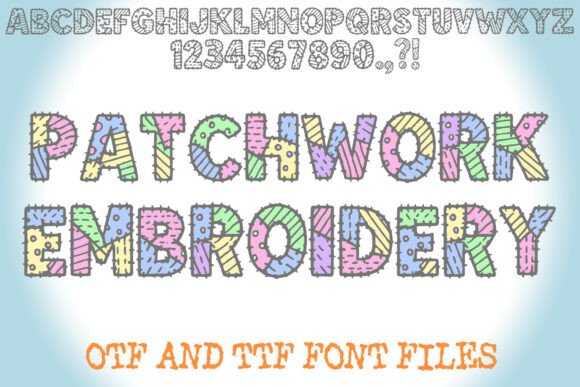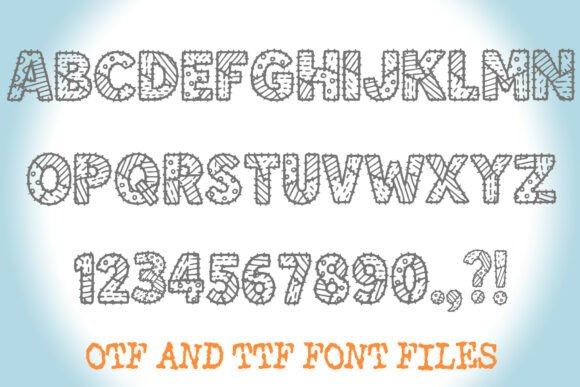
Patchwork Embroidery Font
Patchwork Embroidery is a playful decorative display font inspired by hand-stitched fabric and textile art. Each character is designed to resemble colorful patches sewn together with visible stitch lines, combining charming imperfection with folk-art warmth. With its hand-drawn aesthetic, layered textures, and patch-style color blocking, this typeface brings a tactile, cozy feel to digital designs. Ideal for craft-themed projects, sewing pattern covers, children’s books, fabric branding, or DIY event invitations, Patchwork Embroidery adds a whimsical, homespun quality. Supplied in OTF and TTF formats, it delivers both visual richness and versatility for creative use.